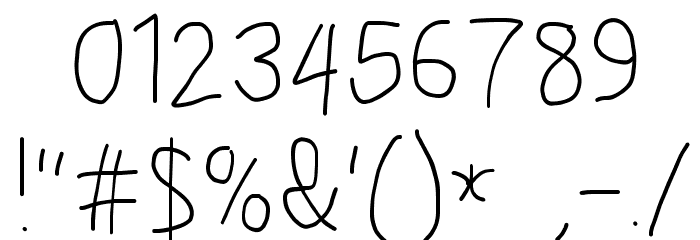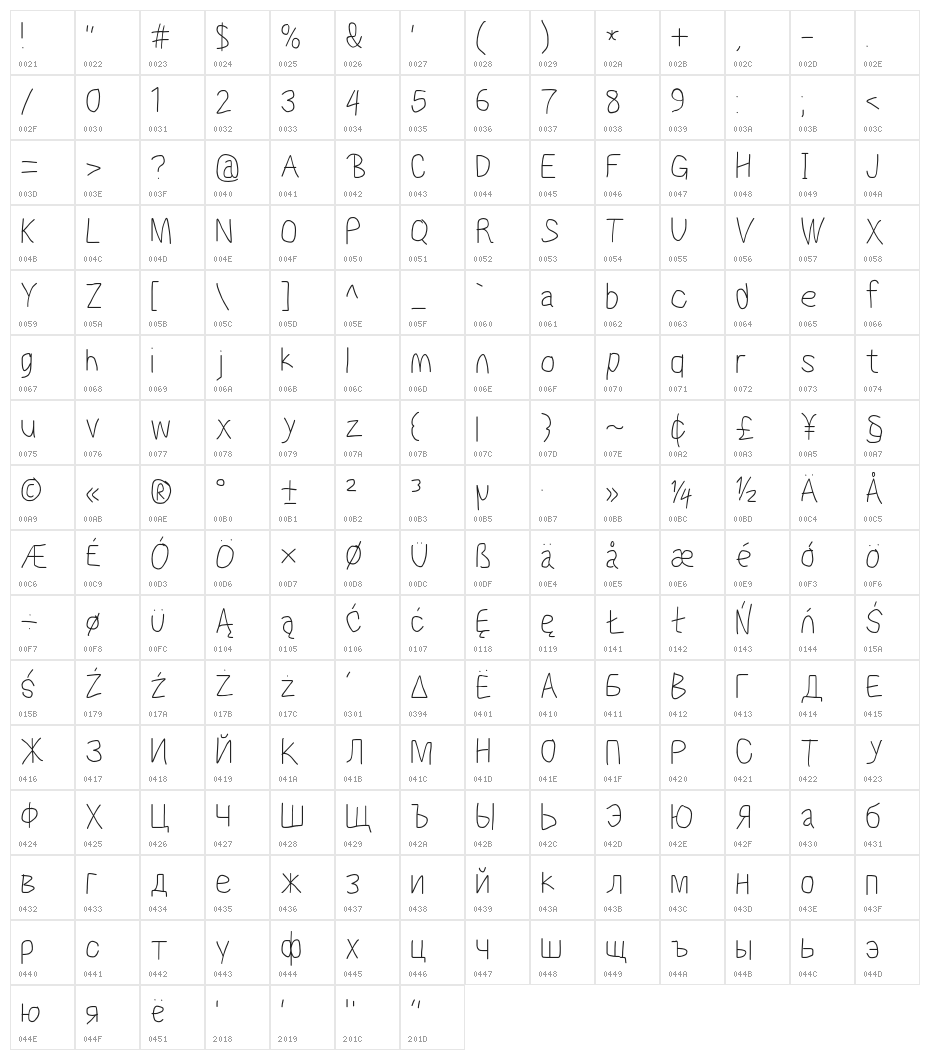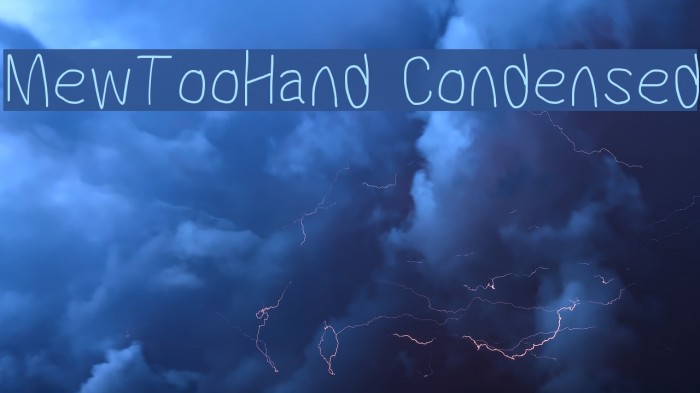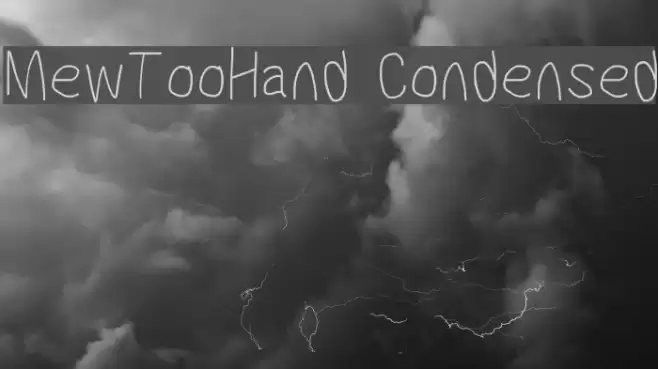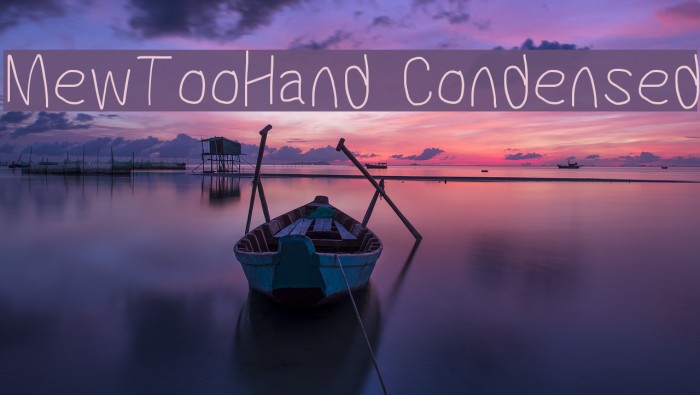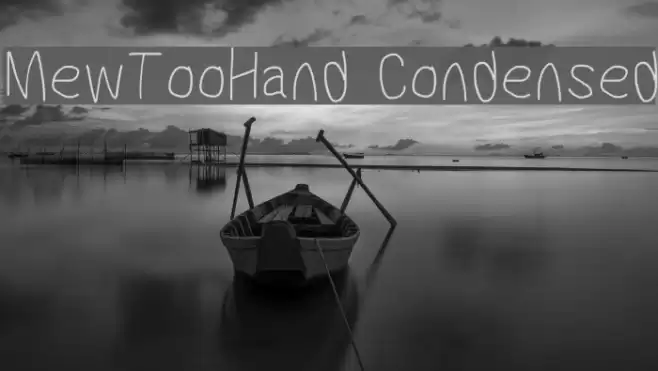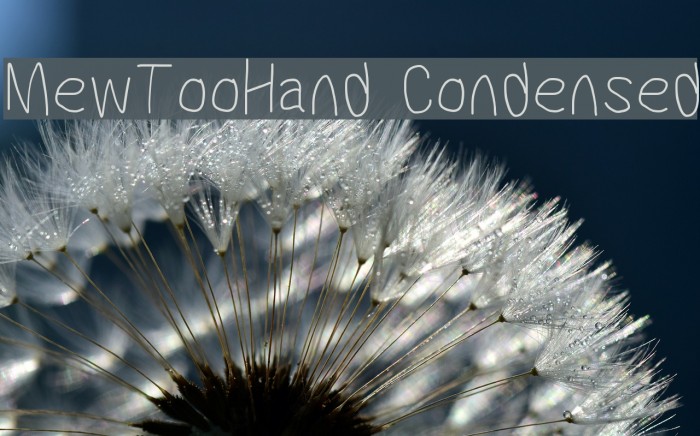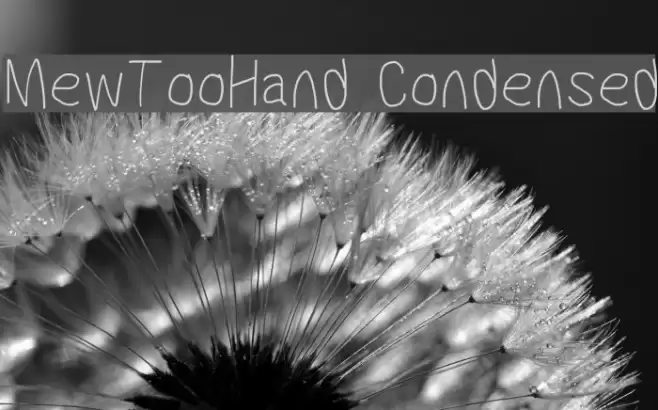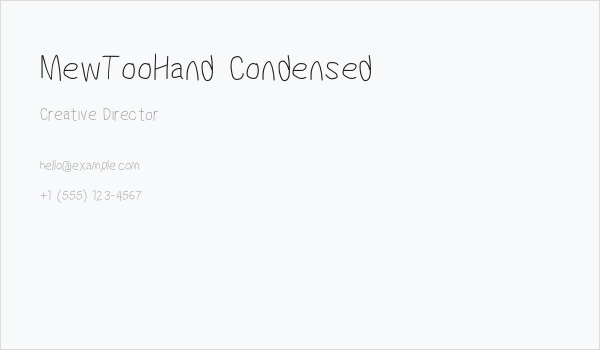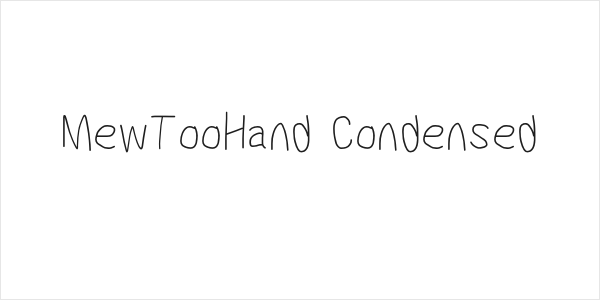
MewTooHand Condensed Font
MewTooHand Condensed Description
This font features a playful and informal handwritten style with a condensed structure. The characters are tall and narrow, giving it a unique and quirky appearance. The strokes are consistent in width, providing a uniform look across all letters and numbers. The uppercase and lowercase letters maintain a casual and friendly vibe, making it suitable for creative and informal projects. The special characters are well-integrated, maintaining the same playful aesthetic. Overall, this font exudes a sense of fun and creativity, perfect for projects that require a personal touch.
| Overall Style | Playful, Informal |
| Use Case | Logos, Posters, Creative projects |
| Proposed Projects | Ideal for greeting cards, children's books, playful branding, and creative posters. |